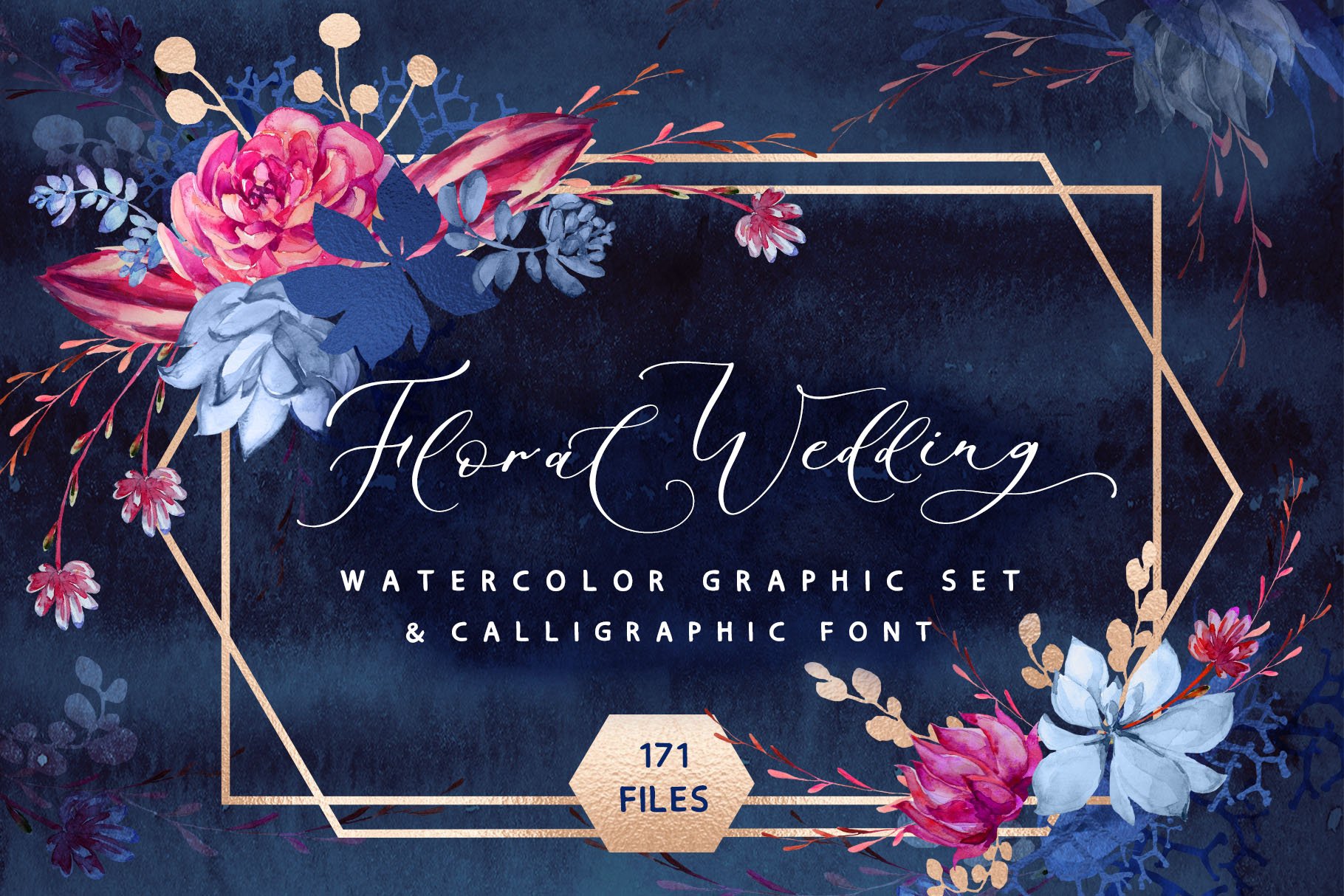
Floral wedding graphic + script font Corporate Identity
I'm happy to present you my new big watercolor graphics pack - Floral wedding clip art & and additional fonts.
Hand-painted elegant and delicate watercolor flowers and watercolor background were inspired by wedding trends and painting bouquets. This gorgeous set of floral elements and design assets is created in navy, blue, pink & gold palette. It would work perfectly for branding, logos, wedding stationery, social media, packaging, textile, marketing material, web background and other projects that require an elegant touch.
You can use the separate elements to create your own arrangements for a quick and easy design. The floral alphabet is perfect for wedding monograms or branding identity.
You also receive 3 fonts – perfectly fitting handwritten calligraphic script font and sans serif font & additional symbols font.
Calligraphic script font contains a full set of uppercase letters and 5 full sets of lowercase letters, (standard, alternative, and initial, final form and flourish form. To make a needed form just type a letter with a number such as a1, a2 a3...) and 27 ligatures - which can be used to create a handwritten calligraphy look.
The Symbols font have over 36 hand-drawn elements, illustrations, and swashes and can help to make your design more original. Combine and arrange swashes and illustrations to create your own designs and make borders, frames, dividers, logos and more.
Additional sans serif font contains all caps characters. All fonts have multilingual support for 27 languages.